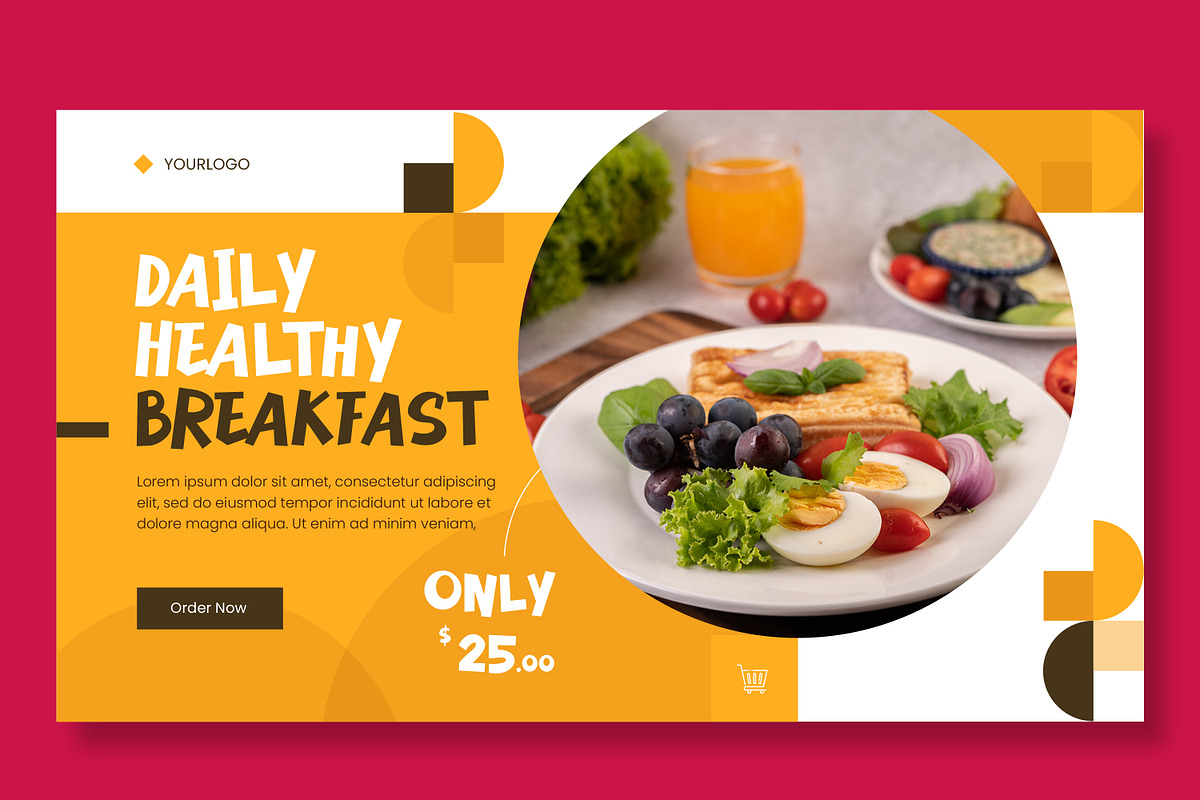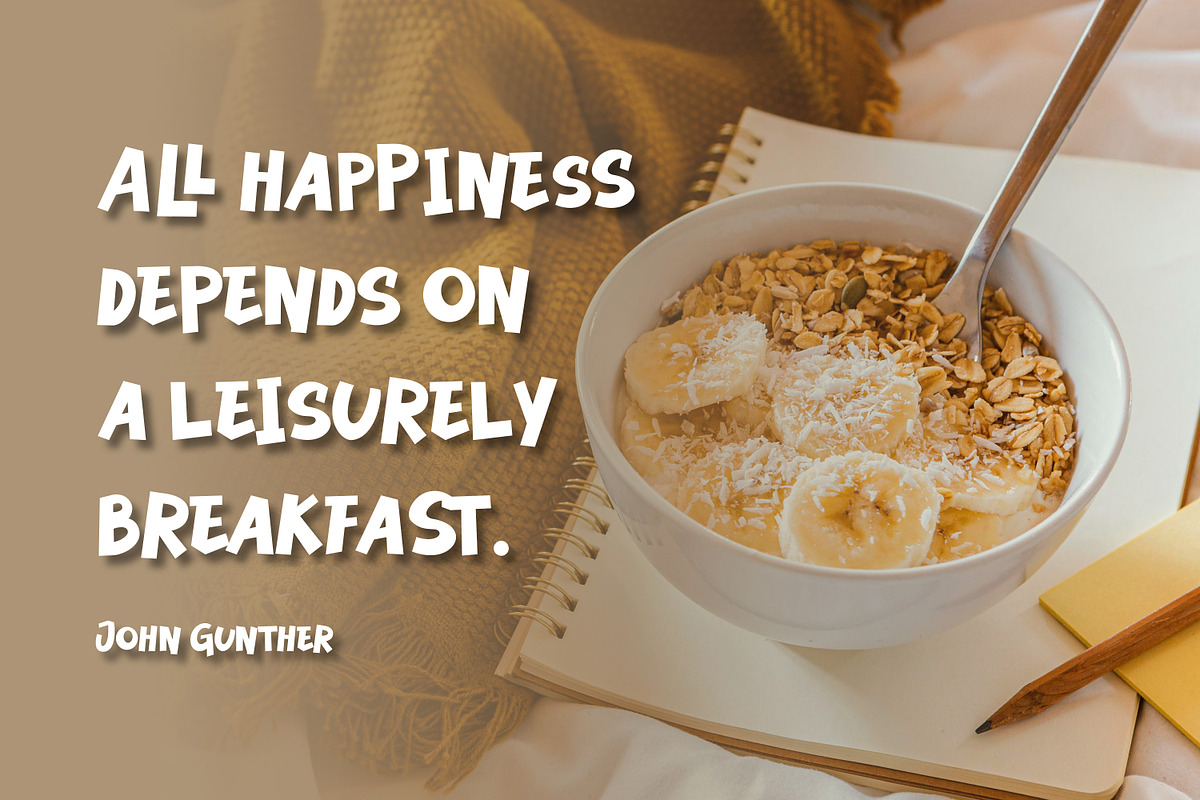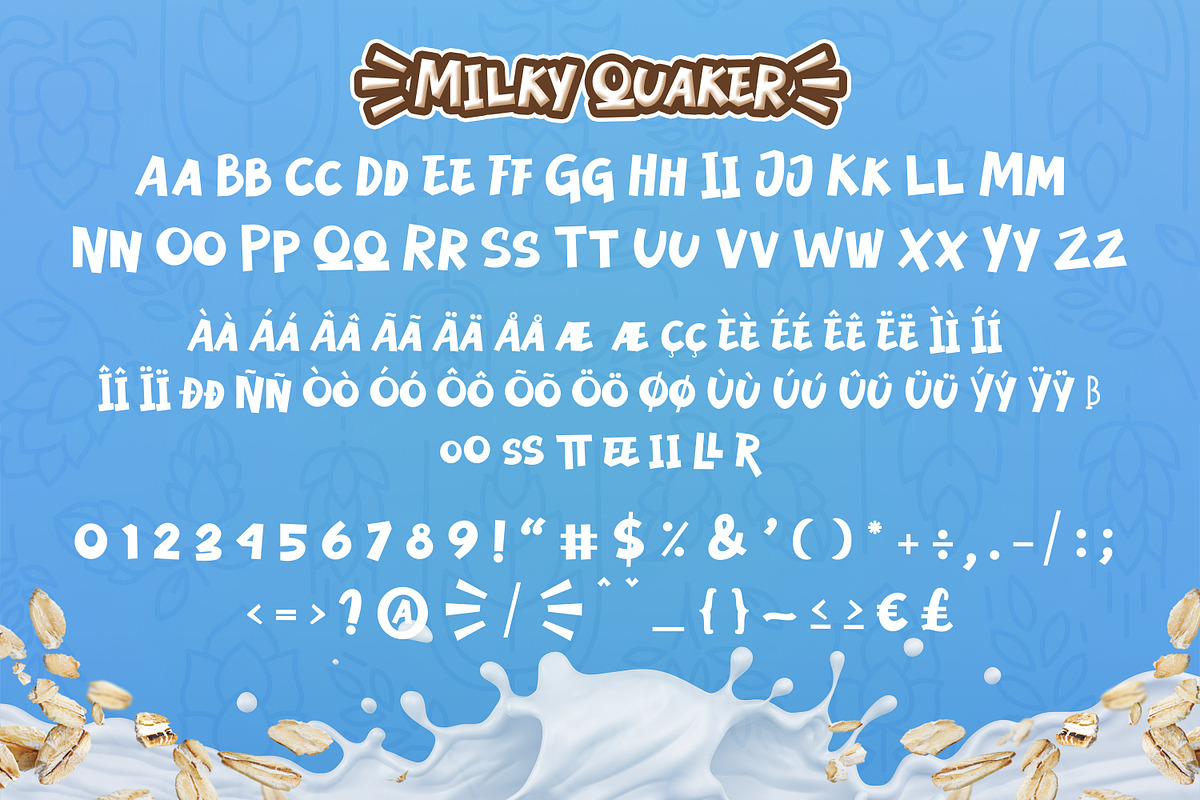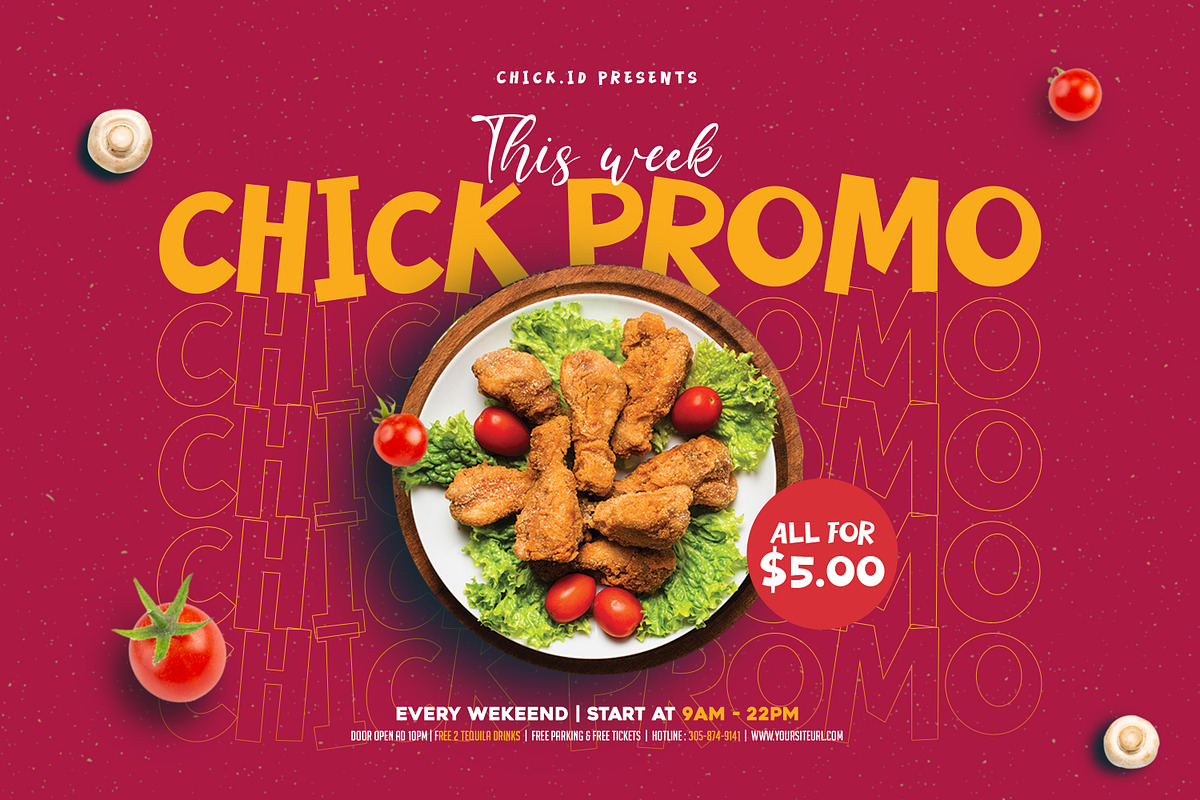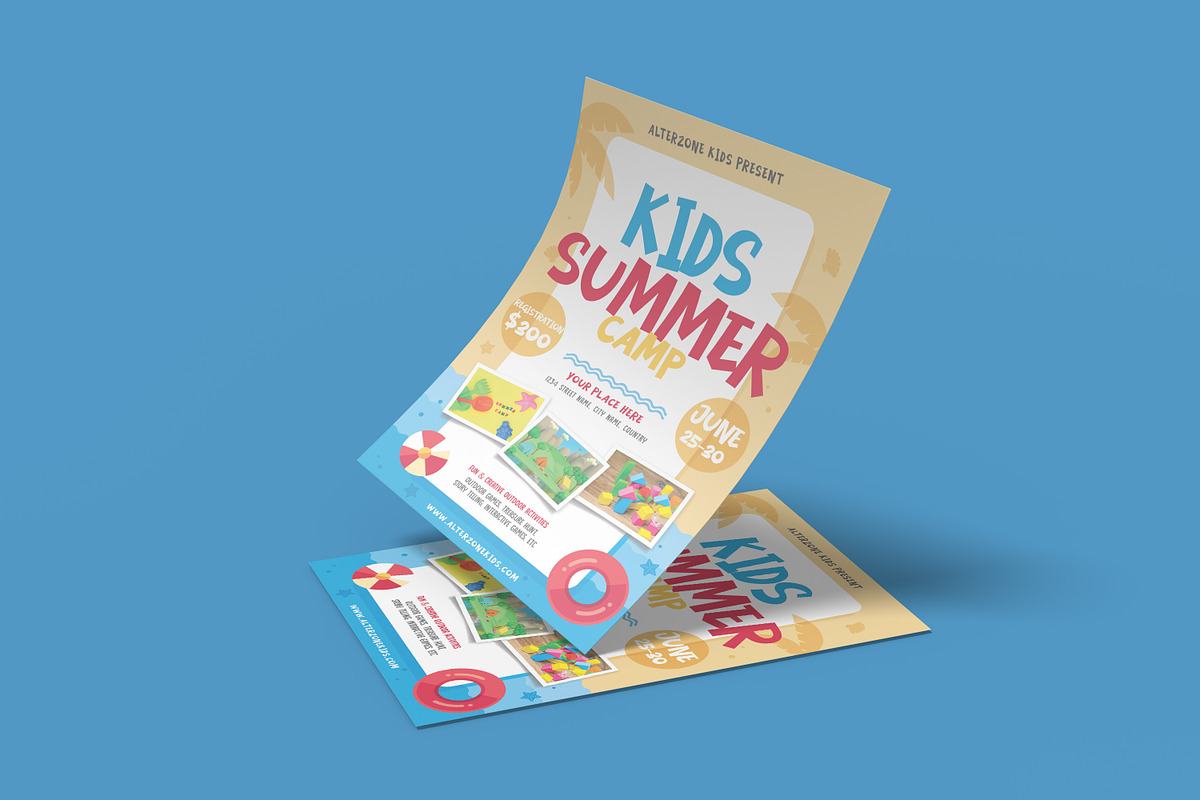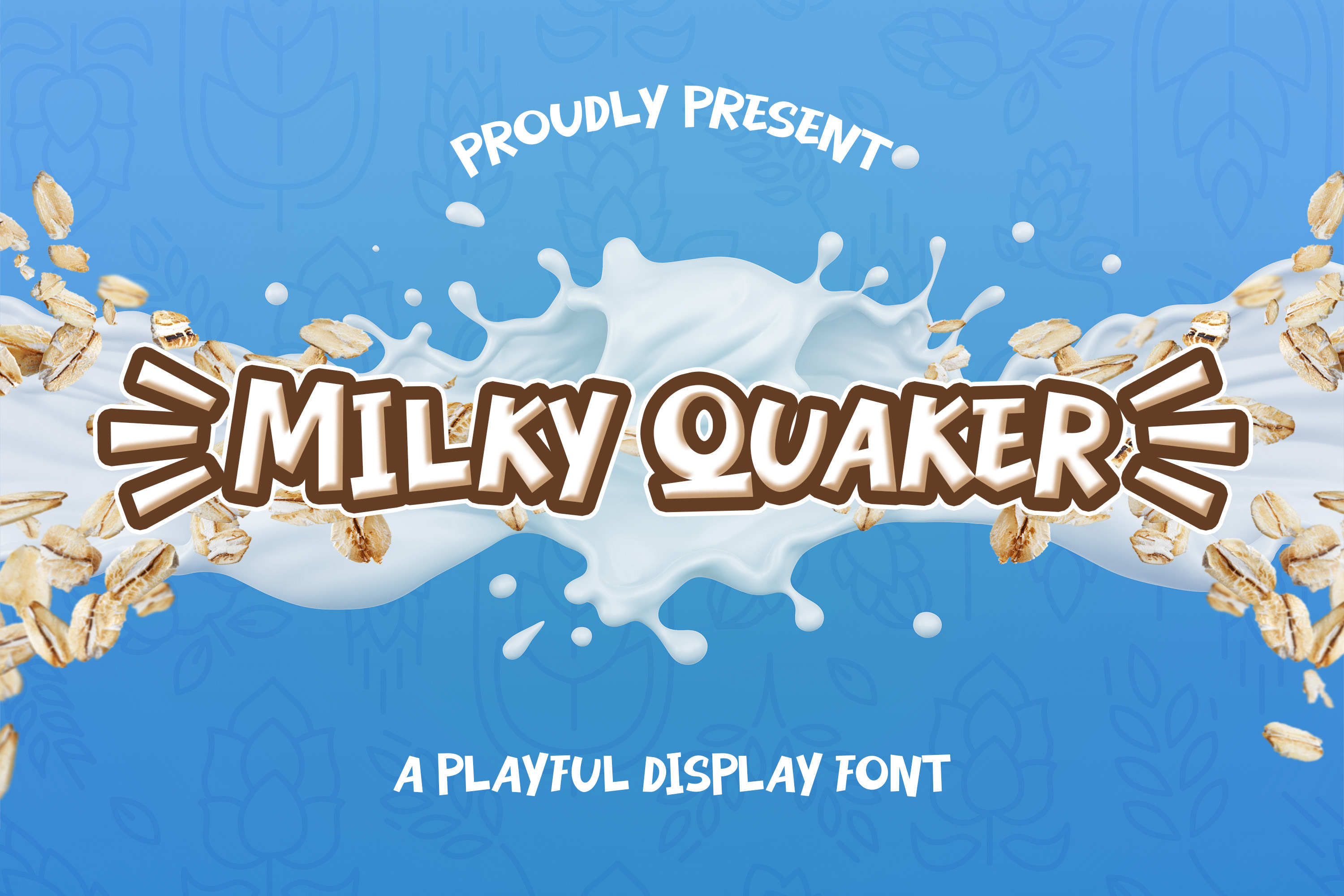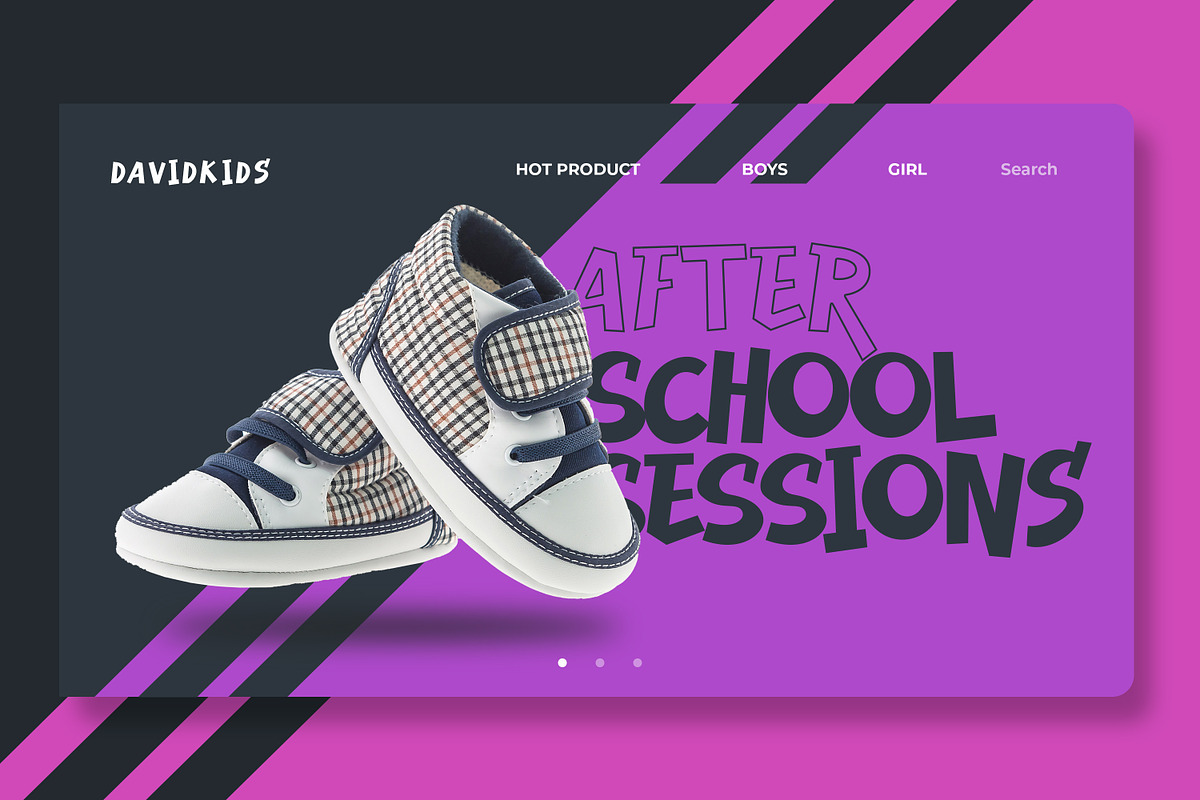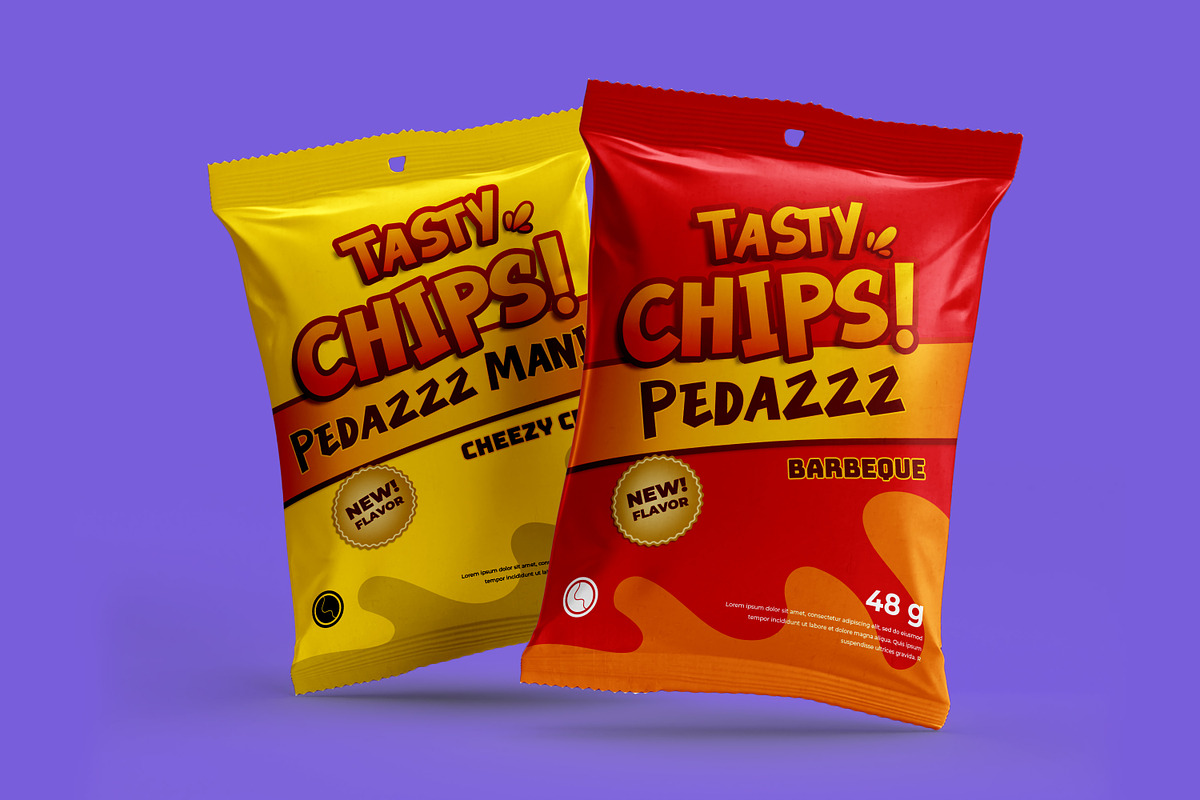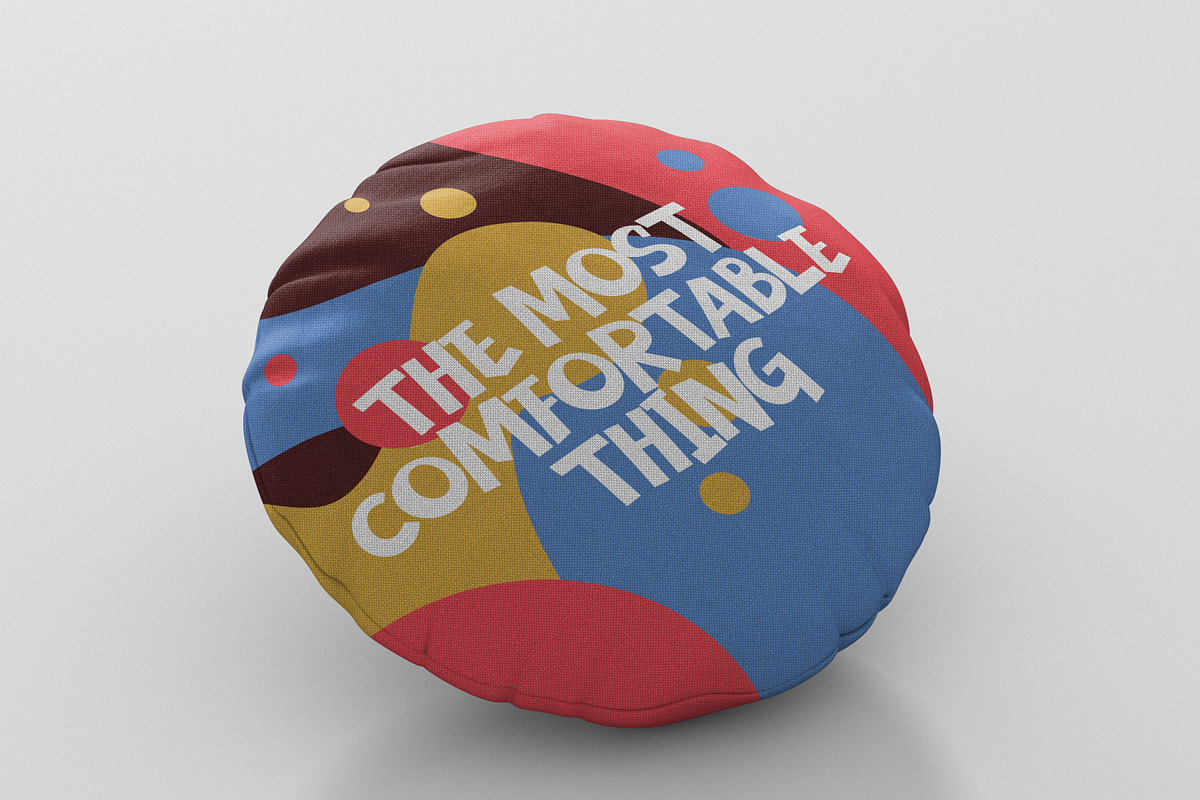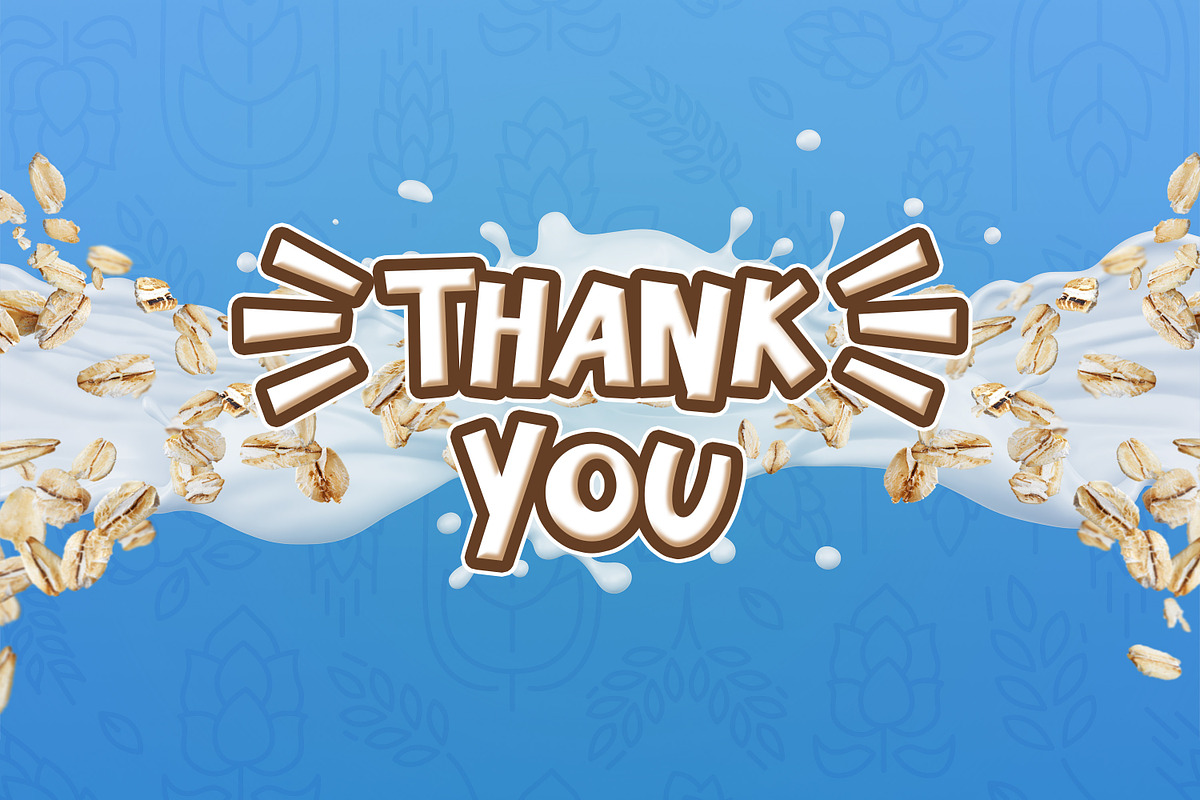
Milky Quaker - Playful Display Font
Milky Quaker is a - Playful Display Font that will make your designs look modern, unique and fun. It’s perfect for labels, quotes, posters, DIY projects, branding, packaging, greeting cards, websites, photography overlays, signs, window art, scrapbooking, tags and so much more!